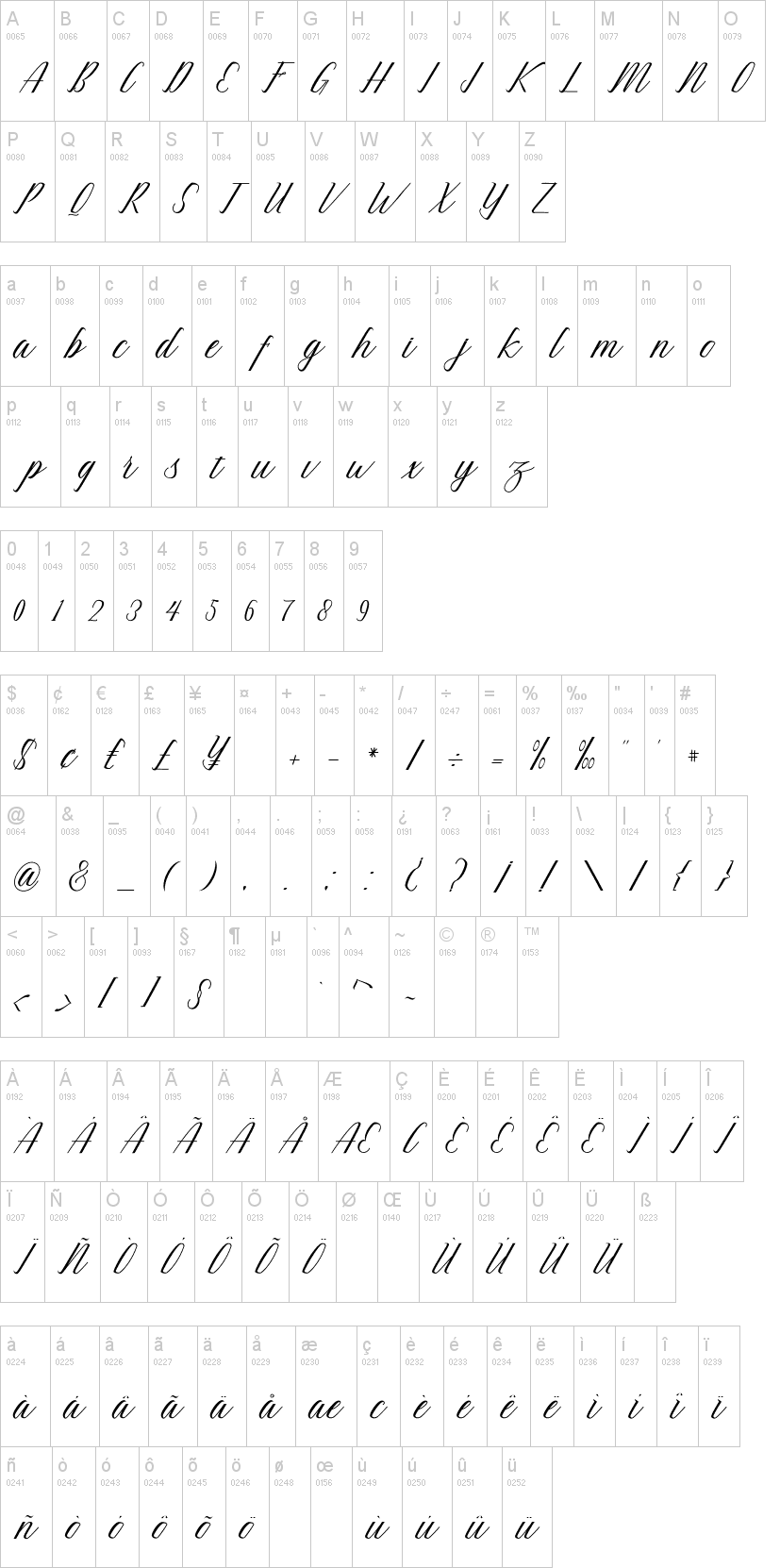
Note of the authorBetter is a font that made the hand by having the character up and down like a dancer.Better has a very unique style of calligraphy, it is very suitable for use in the work of modern design.